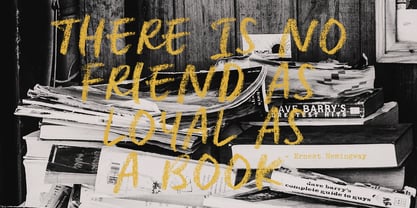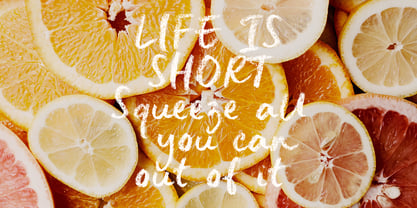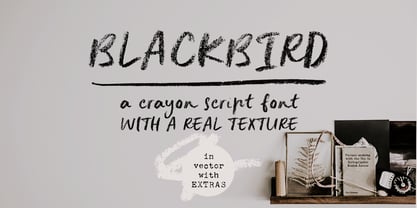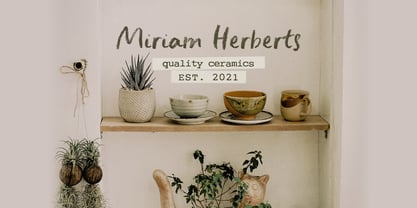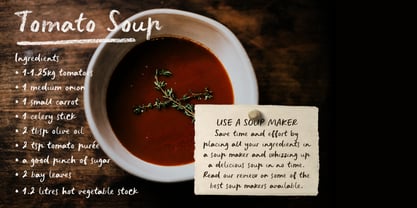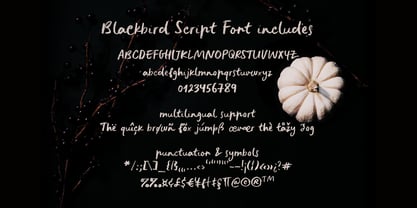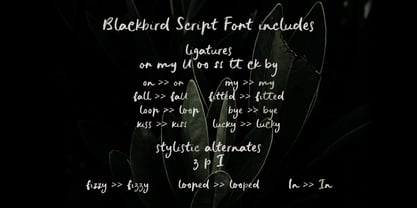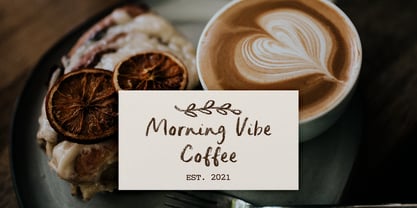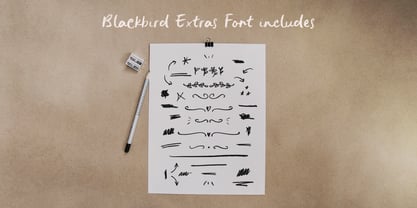
Blackbird
by Ana's Fonts
The Blackbird Font Family was designed by Ana Parracho and published by Ana's Fonts. Blackbird contains 2 styles and family package options. More about this family
Blackbird is a charming handwritten font crafted from crayon-drawn letters, offering a delightful textured appearance. This versatile typeface features a script font complete with ligatures and alternates, as well as an extras font that includes swashes, underlines, arrows, small illustrations, and scratches. Ideal for a variety of design applications, Blackbird enhances postcards, notes, posters, logotypes, social media posts, branding, packaging, and cover designs, making it a perfect choice for creative projects that require a personal touch.
Designers: Ana Parracho
Foundry: Ana's Fonts